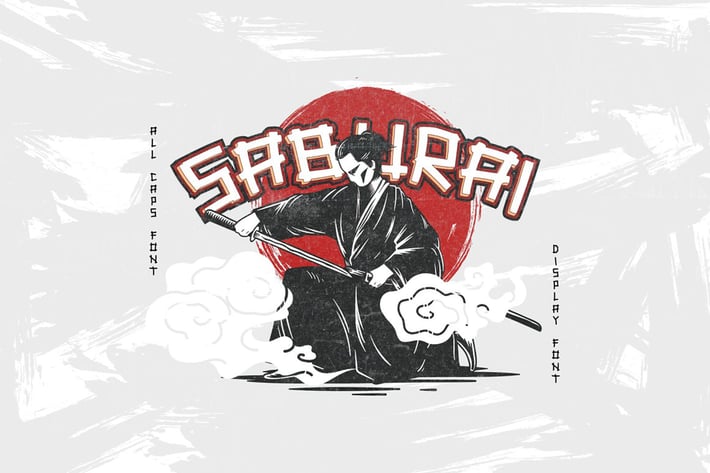
SABURAI - Japanese Font Style
SABURAI - A Japanese-Inspired Font
SABURAI is a modern uppercase font inspired by contemporary Japanese design and is most suited as a decorative display font. This SABURAI font is suitable for those of you who like japanese culture, besides this font is also suitable for those of you who have a japanese restaurant, japanese logo, japanese arts, and business purpose related with japanese culture.